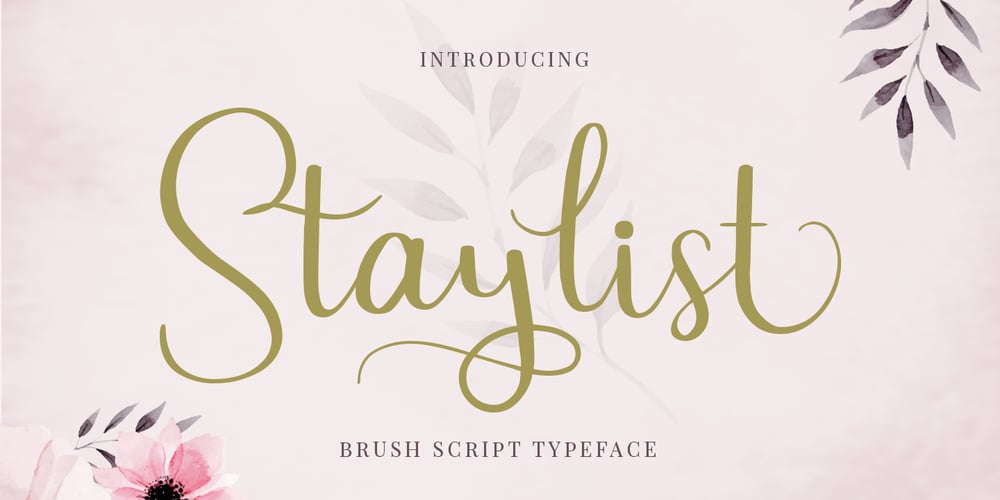
Staylist Font Family was designed by Jos Gandos and published by Jos Gandos. Staylist contains 1 styles and family package options. Staylist is a beautiful and cute script for any awesome projects such as wedding cards, watermarks, quotes, social media, posters, invitations, and more. This font is PUA encoded so it will be accessible in the Adobe Illustrator, Adobe Photoshop, Adobe InDesign, even work on Microsoft Word.